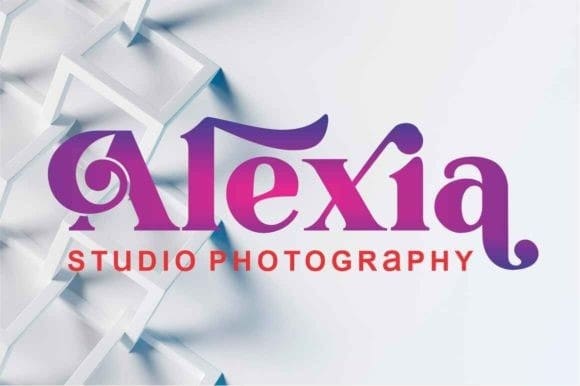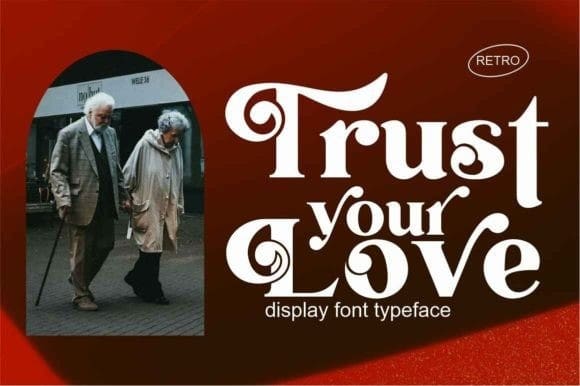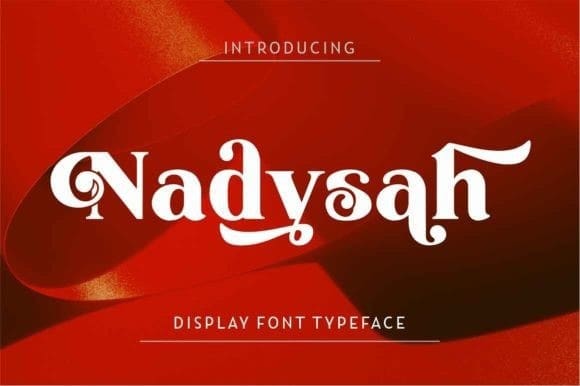
Nadysah Font
Nadysah Font is an elegant serif display font with a contemporary atmosphere and impeccable form, inspired by timeless classic calligraphy. Not too thin and not too thick, balanced and varied, this font was designed to enhance the beauty of your projects.